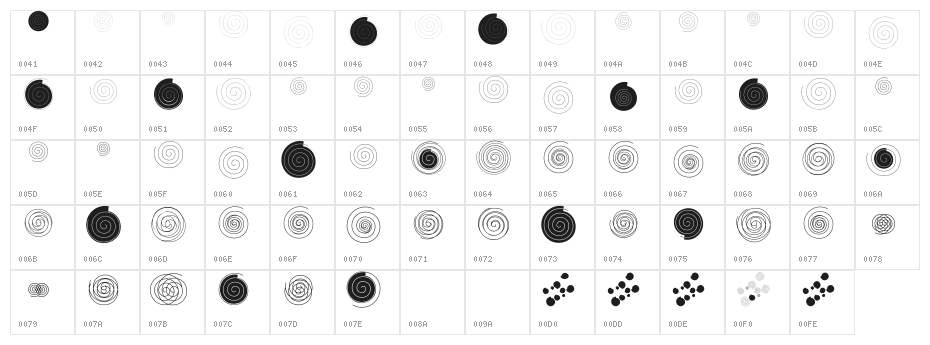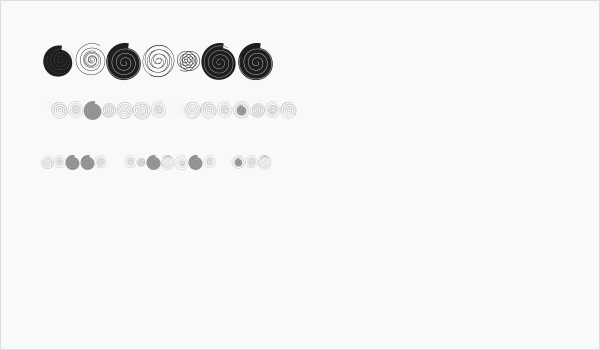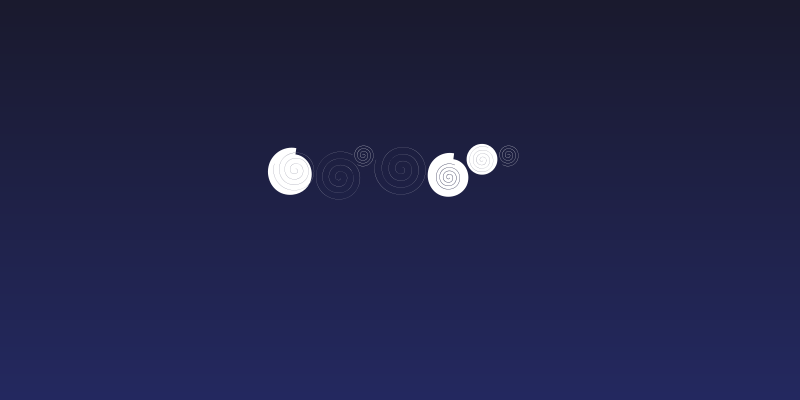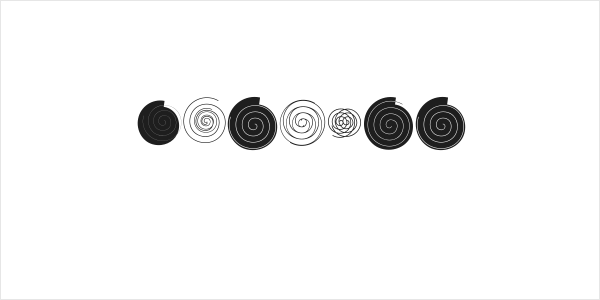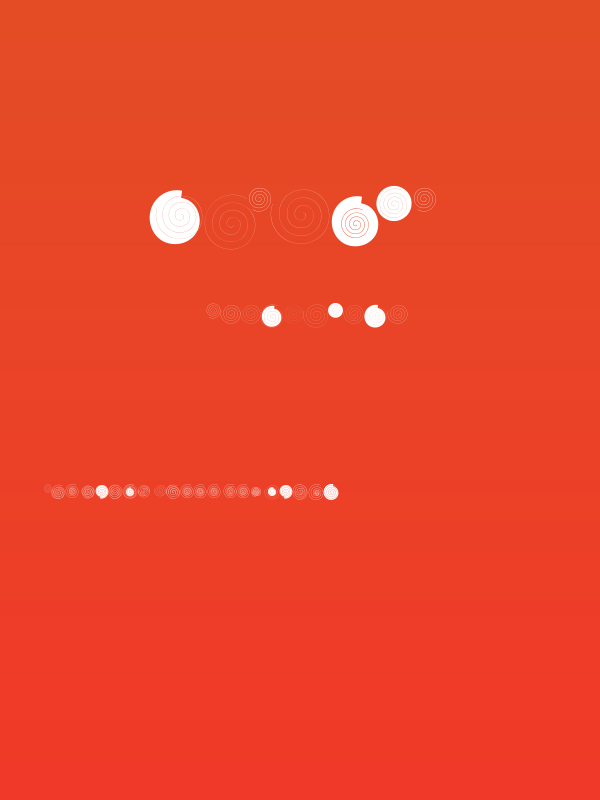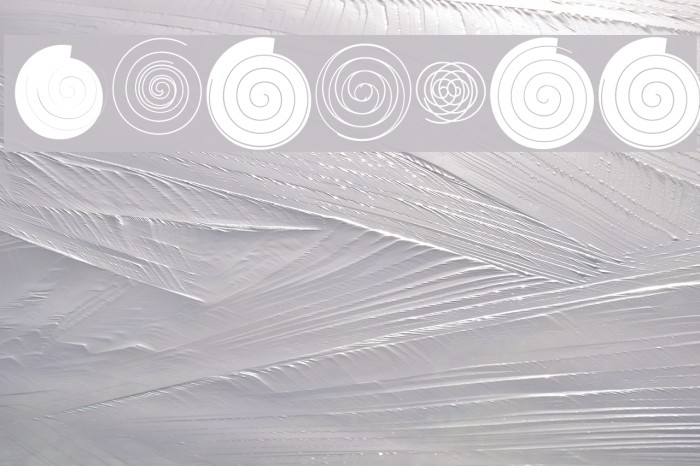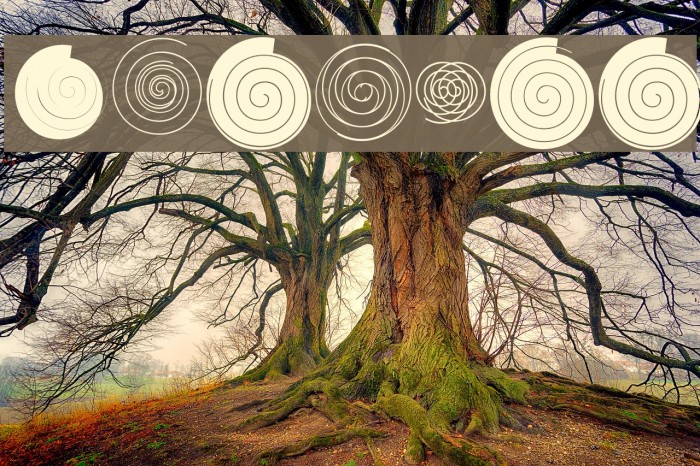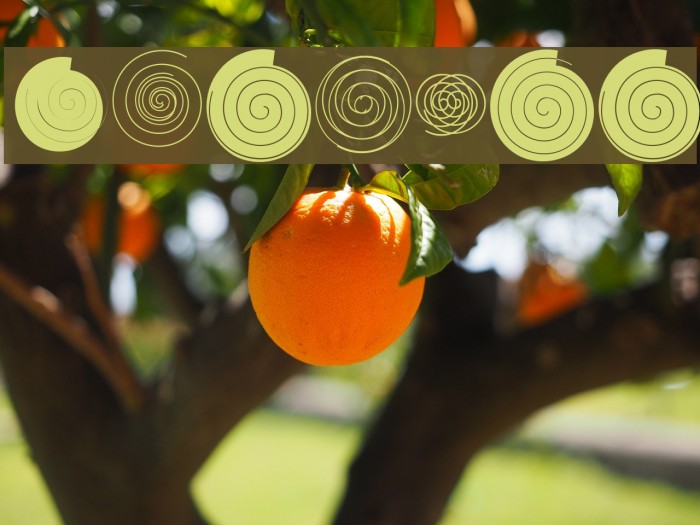
Helixal Font
Helixal Description
This is not a valid font. The image consists of a series of spiral shapes that vary in size and color, alternating between black and white. These spirals are arranged in rows and do not form any recognizable letters, numbers, or characters typically found in a font set. The design is purely decorative and does not serve the functional purpose of a typeface.
| Use Case | Decorative elements |
| Proposed Projects | This design could be used for decorative purposes, such as backgrounds, patterns, or artistic projects. |